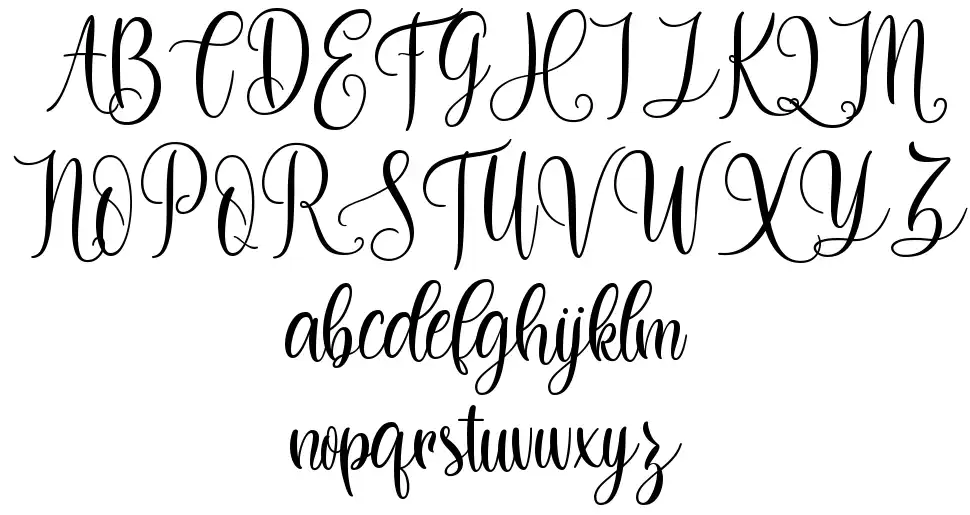
Dilan Font. Dilan whemsy is a delicate, elegant and flowing handwritten font. Milea dilan is a well balanced and romantic script font. Add it to your most creative ideas and notice how it makes them come alive! Lebih nyaman jika milea bisa menabok balik si kawan cunihin itu dan dilan tak perlu datang sebagai pahlawan.
Dilan is a delicate, elegant and flowing handwritten font. Add it to your most creative ideas and notice how it makes them come alive! This font is designed and released by stringlabs and along with a unique flowing style. Penghargaan tahunan sejak 2016 itu sebelumnya telah. Janji dilan font is a cool and brush display font. This dilan whemsy script is very elegant with many styles, and with smooth and soft lines not much stained, equipped with upper and lower case letters, and alternative lowercase letters, swash, multilingual symbols, numbers,.
Dilan whemsy font is modern calligraphy fonts, combines from copperplate to contemporary typeface with a dancing baseline.
Jan 31, 2018 at 08:16. Janji dilan is a cool and brushed display font. It is a handwritten typeface that has an elegant and classy look. Rumah milea di film dilan meraih penghargaan bangunan cagar budaya kota bandung 2021. Milea dilan is a well balanced and romantic script font. Dilan whemsy font is modern calligraphy fonts, combines from copperplate to contemporary typeface with a dancing baseline.
If you recognize the font from the samples posted here don�t be shy and help a fellow designer. Janji dilan is a cool and brushed display font. This font is pua encoded which means you can access all of the glyphs and swashes with ease! Add it to your most creative ideas and notice how it makes them come alive! Dilan is a delicate, elegant and flowing handwritten font.
It has beautiful and well balanced characters and as a result, it matches a wide pool of designs. This font is pua encoded which means you can access all of the cute glyphs and swashes with ease! Dilan whemsy font is modern calligraphy fonts, combines from copperplate to contemporary typeface with a dancing baseline. This font is designed and released by stringlabs and along with a unique flowing style. Janji dilan is a cool and brushed display font.
It has beautiful and well balanced characters and as a result, it matches a wide pool of designs. Although we have the largest database of fonts, the search for a font from an image gets mixed results like the image above. Its only sf2 bro :/. Dilan whemsy is a delicate, elegant and flowing handwritten font. Download free high quality fonts for your professional work and showcase your talent to the world using.
This font is designed and released by stringlabs and along with a unique flowing style. This dilan whemsy script is very elegant with many styles, and with smooth and soft lines not much stained, equipped with upper and lower case letters, and alternative lowercase letters, swash, multilingual symbols, numbers,. Dilan script is a delicate, elegant and flowing handwritten font. This font is pua encoded which means you can access all of the glyphs and swashes with ease! It has beautiful and well balanced characters and as a result, it matches a wide pool of designs.
Add it to your most creative ideas and notice how it makes them come alive! Rumah milea di film dilan meraih penghargaan bangunan cagar budaya kota bandung 2021. Milea dilan is a well balanced and romantic script font. Janji dilan is a cool and brushed display font. Add it to your most creative ideas and notice how it makes them come alive!
This font is designed and released by stringlabs and along with a unique flowing style. This dilan whemsy script is very elegant with many styles, and with smooth and soft lines not much stained, equipped with upper and lower case letters, and alternative lowercase letters, swash, multilingual symbols, numbers,. Browse by alphabetical listing, by style, by author or by popularity. It is a handwritten typeface that has an elegant and classy look. Lebih nyaman jika milea bisa menabok balik si kawan cunihin itu dan dilan tak perlu datang sebagai pahlawan.